Top 10 Free Fonts for Designers in 2025
Discover 10 must-have free fonts for designers in 2025.
As a designer, you know that the right font can make or break a project. Luckily, 2025 brings a fresh lineup of free fonts that combine style, versatility, and functionality. From sleek modern designs to bold retro inspirations, these fonts will elevate your work—and they are free!
1. Satoshi
Satoshi is a clean, modern sans-serif that embraces simplicity. With its balanced proportions and sharp edges, this font works beautifully for websites, apps, or branding projects. Its minimalistic design ensures readability, making it perfect for both small text and large headings.
Best for: Clean UI/UX design, editorial content, and modern logos.
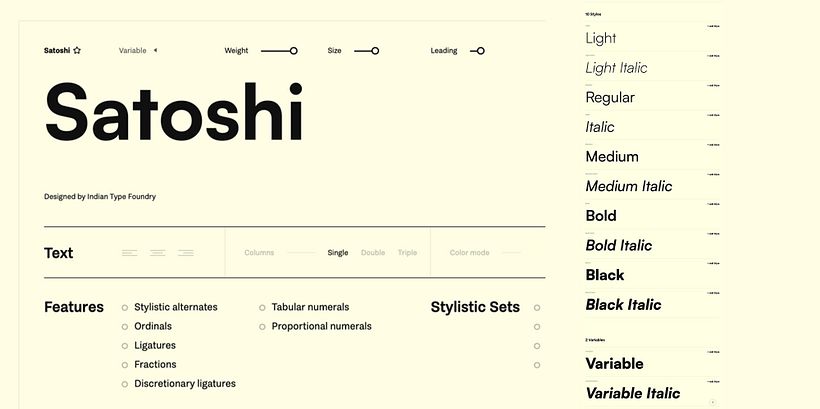
2. Spartan MB
Inspired by classic typefaces, Spartan MB gives you a mix of vintage charm and contemporary polish. Its strong, geometric structure makes it stand out without overwhelming the design. Whether for headlines or bold posters, Spartan MB is a reliable choice.
Best for: Posters, headlines, and retro-inspired designs.
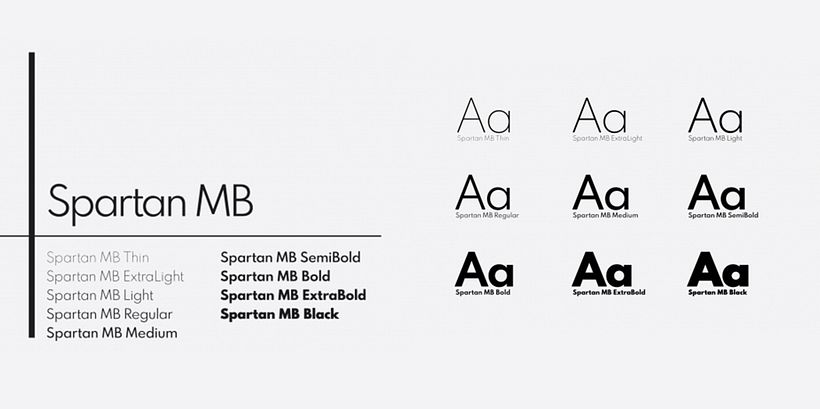
3. Botera
Botera is a sophisticated serif with strong roots in wine and culinary design. Its smooth, refined letters are perfect for adding a touch of luxury and tradition. Botera works well in logos, menus, and designs where elegance is key.
Best for: Restaurant branding, wine labels, and upscale editorial work.
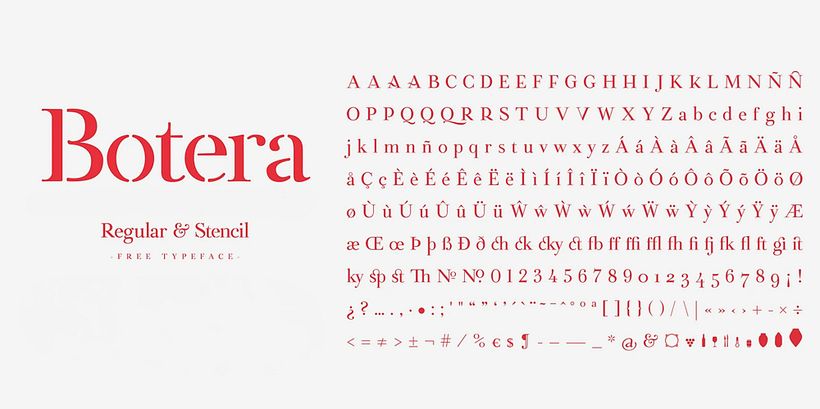
4. Heming
Heming is a refined serif font with a timeless feel. Its soft curves and balanced letterforms bring an air of elegance and calm to your designs. Whether you’re creating editorial layouts, formal invitations, or sophisticated branding, this font delivers a polished look.
Best for: Editorial design, formal invitations, and refined branding.
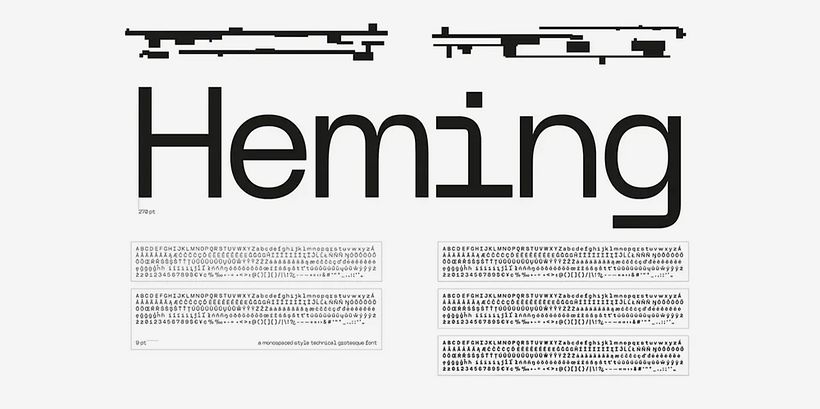
5. Nano
Nano is a sleek, futuristic sans-serif font designed for modern, high-tech projects. Its clean, minimal design makes it a great choice for tech branding, app interfaces, and sci-fi-inspired layouts.
Best for: Technology branding, futuristic designs, and app interfaces.
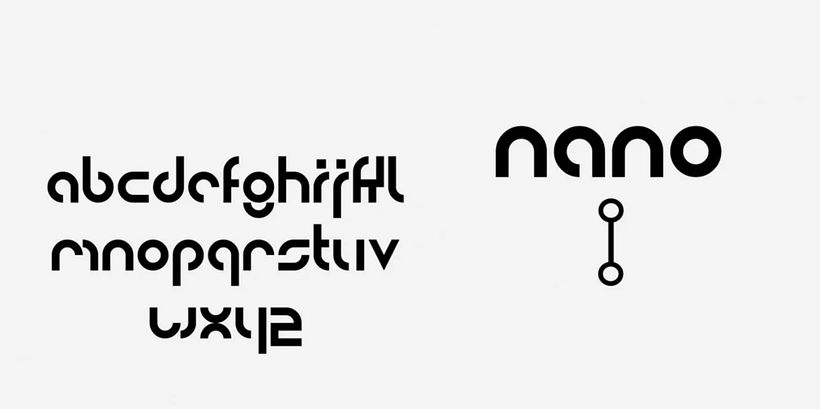
6. Lil Stuart
Lil Stuart is a playful, bold font with a friendly character. Its rounded edges and quirky design make it stand out in creative and fun projects. Perfect for brands that want to show off a lighthearted personality.
Best for: Kids' branding, creative packaging, and fun posters.
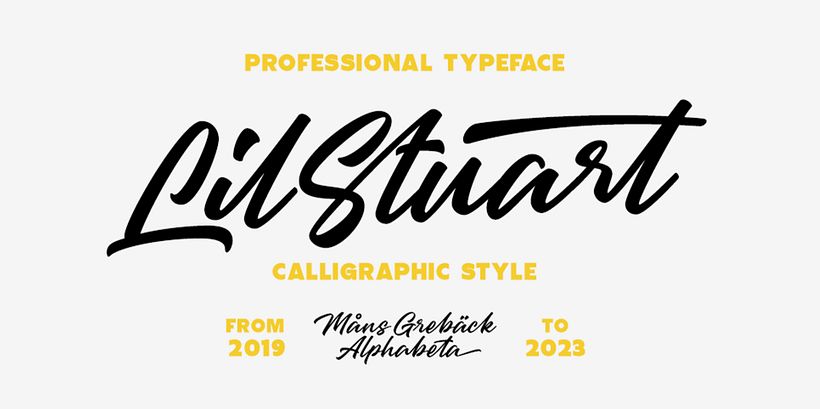
7. Margaret
For a touch of elegance, Margaret is your go-to serif font. With graceful curves and a timeless design, it adds sophistication to any project. Whether you’re designing wedding invitations, book covers, or high-end branding, Margaret delivers class without effort.
Best for: Editorial design, luxury branding, and formal print materials.
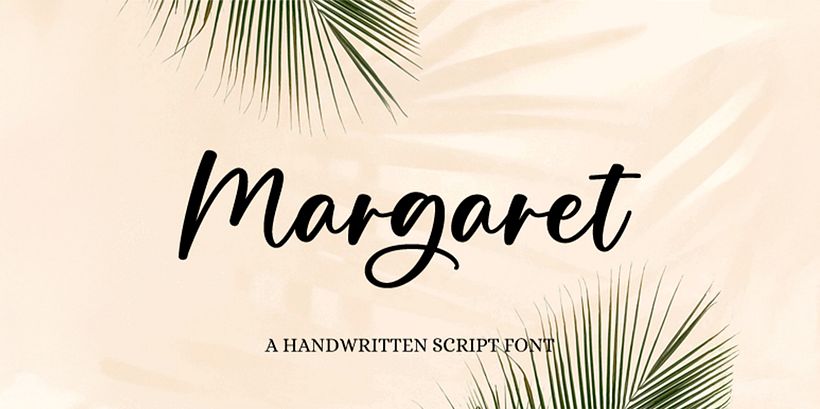
8. Canobis
Canobis is a bold and expressive display font with artistic roots. Its thick strokes and slightly unconventional style make it ideal for creative projects where you need a standout headline or title.
Best for: Artistic posters, packaging, and impactful headlines.
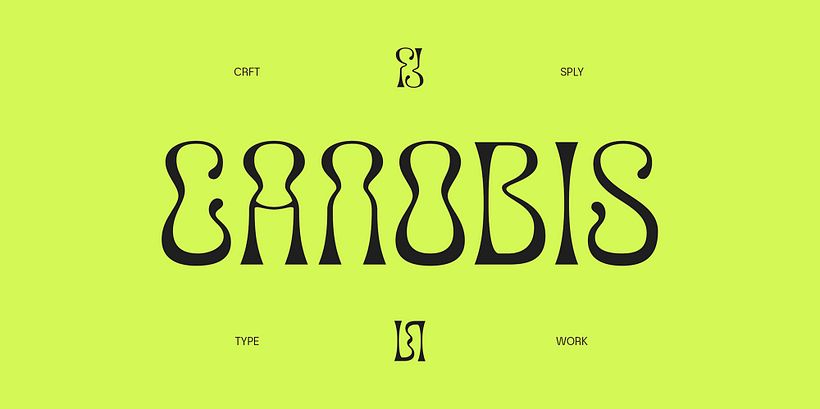
9. Wriggle Typeface
Wriggle Typeface brings energy and movement to your designs. Its playful, wavy letterforms create a sense of fun and spontaneity, making it perfect for lively branding, posters, and eye-catching graphics.
Best for: Playful designs, event posters, and creative branding.
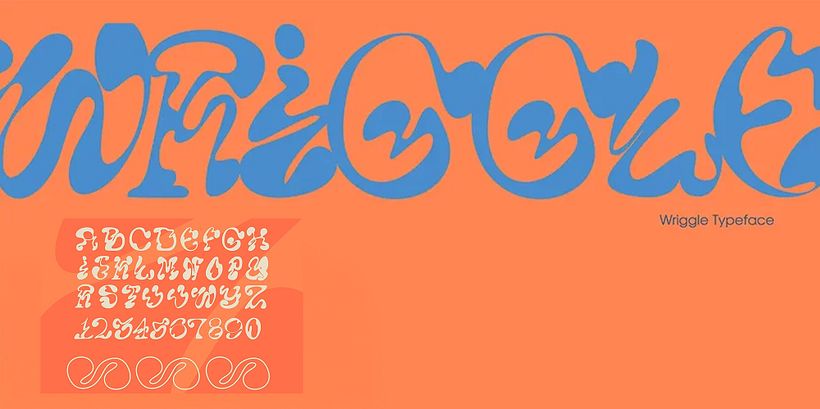
10. Clash Display
Clash Display is for designers who want to make an impact. This bold, high-contrast serif font is loud and unapologetic. Perfect for headlines, titles, and campaigns, Clash Display turns any text into a statement piece.
Best for: Eye-catching headlines, ads, and modern branding.
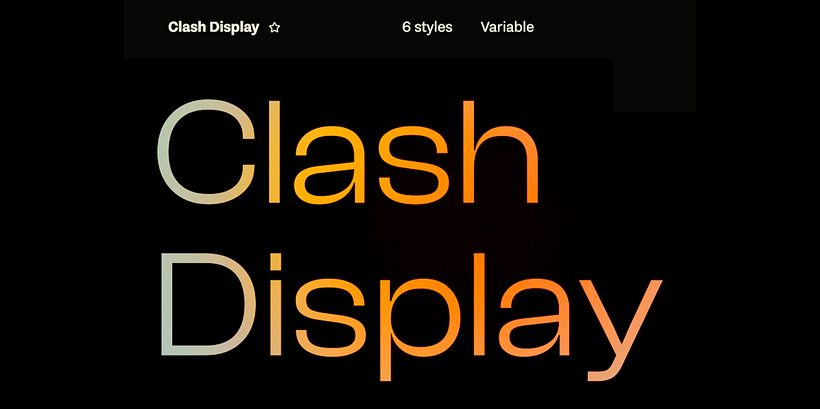
Fonts are the unsung heroes of great design, and this list has something for every style and project. From clean and minimal to bold and expressive, these 10 free fonts will help you keep your designs fresh in 2025. Best of all, they won’t put a dent in your budget—so go ahead and start creating!